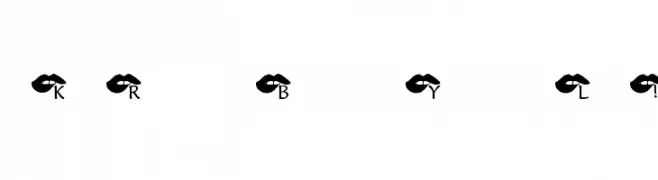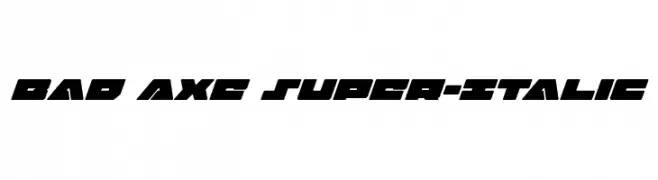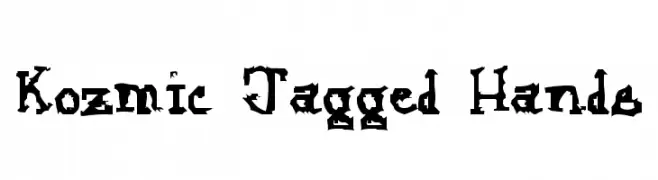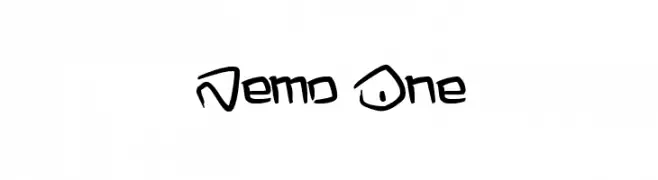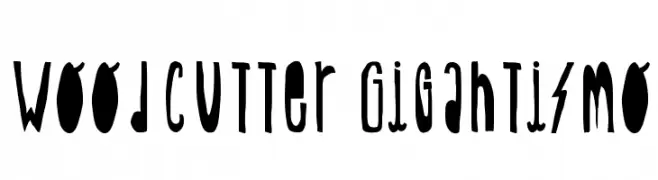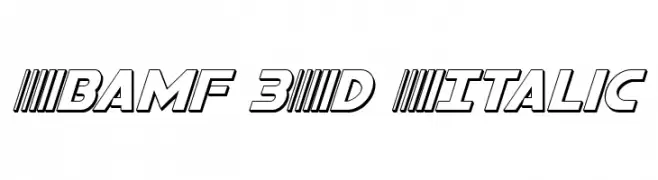
A bold, striped font with a dynamic and eye-catching design.
A playful font with characters embedded in stylized lips, offering a unique and quirky design.
A bold, italic, and geometric font with a futuristic style.
A jagged, edgy font with irregular, sharp characters for a bold appearance.
A modern, geometric italic font with a sleek, technical aesthetic.
A graffiti-inspired font with angular, edgy letterforms and a bold, expressive style.
A bold, playful font with exaggerated, hand-drawn characters.
A bold, italic script font with elegant, flowing cursive letters.
A bold, 3D italic font with a modern and dynamic style.